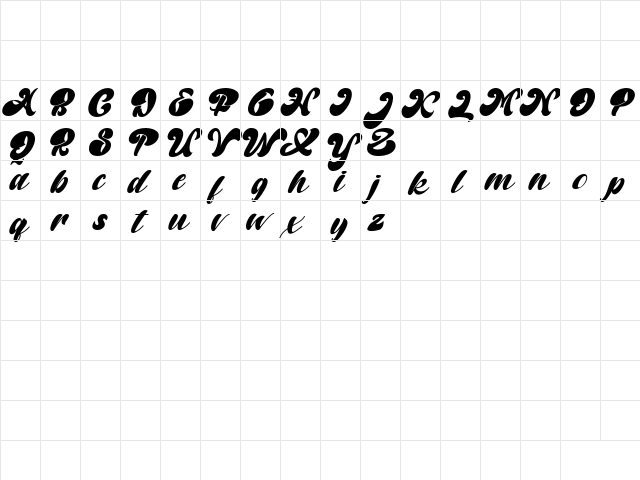
Random But Perfect Italic
Design Context for Random But Perfect Typeface
Random But Perfect is a composed and adaptable typeface that performs quietly and consistently across a wide range of design contexts. The slanted form adds forward momentum and visual energy.
Pro Tip: Try Random But Perfect for annotation and caption copy alongside an upright companion — the contrast in angle creates a dynamic but ordered typographic system.